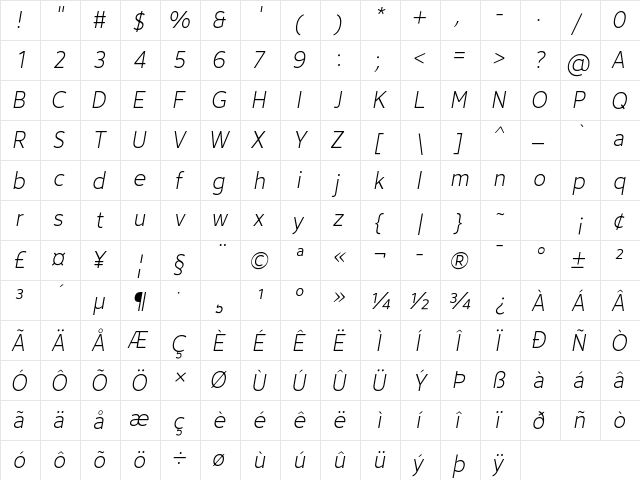
Avancement 2020 Light Italic Font Preview
| Foundry | Daniel Lyons Entertainment |
| Designer | Dan P. Lyons |
Design Context for Avancement 2020 Typeface
Avancement 2020 is a composed and adaptable typeface that performs quietly and consistently across a wide range of design contexts. Its italic angle brings a sense of urgency and motion to the letterforms. Its slender proportions lend an understated elegance to any composition.
Pro Tip: Try Avancement 2020 for annotation and caption copy alongside an upright companion — the contrast in angle creates a dynamic but ordered typographic system.